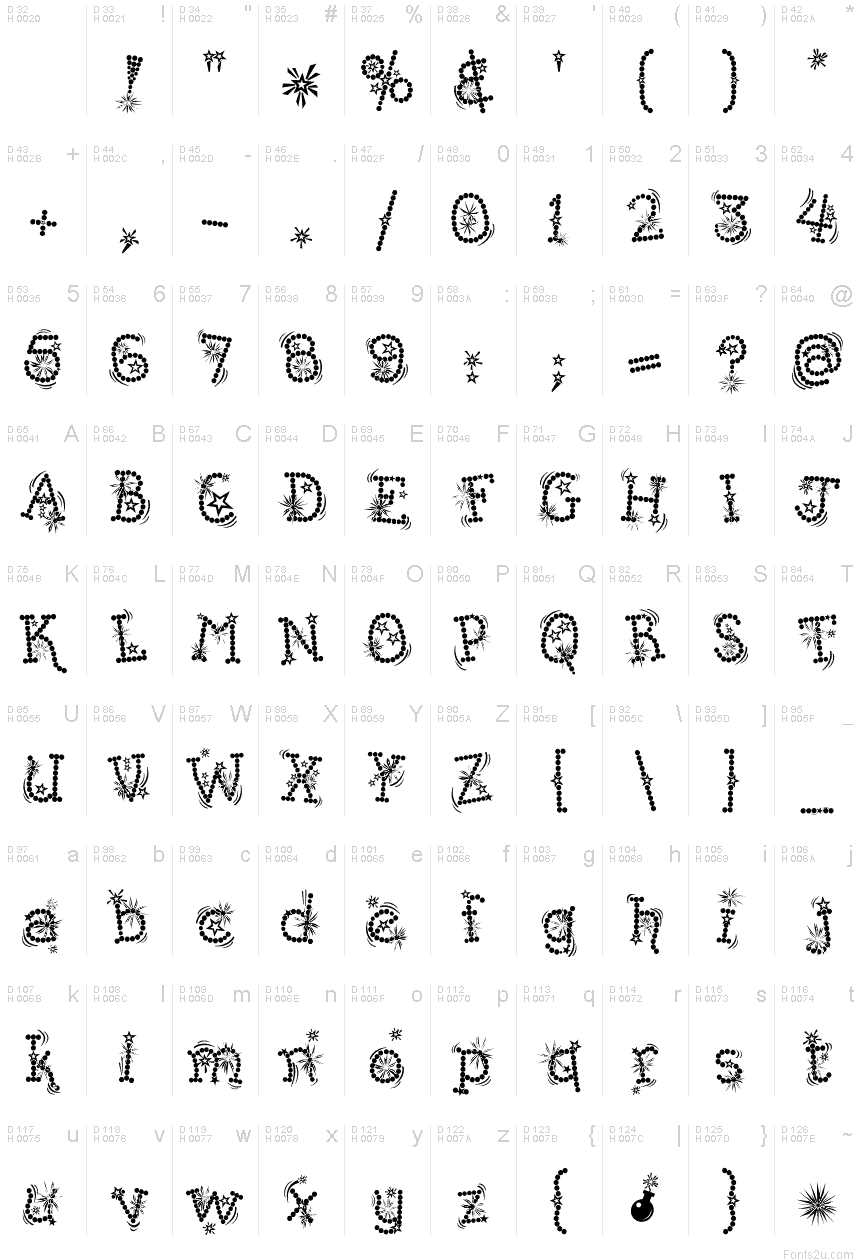
Kingthings Whizzbang
Kingthings Whizzbang font by Kingthings is a free decorative display typeface that explodes with energy. Each letter is built from bold inky dots, starbursts, and swooping comet tails, like a sky full of fireworks frozen mid-bang. The forms feel playful and slightly chaotic, yet still readable in short bursts, giving you loud, festive lettering without needing extra graphics.
Using Kingthings Whizzbang, your titles instantly feel like a celebration-great for party invitations, New Year’s flyers, kids’ event posters, carnival branding, book covers, or holiday craft projects. This free font shines in big sizes where its sparkling details can really pop; pair it with a clean sans serif for body text to keep everything legible and balanced.